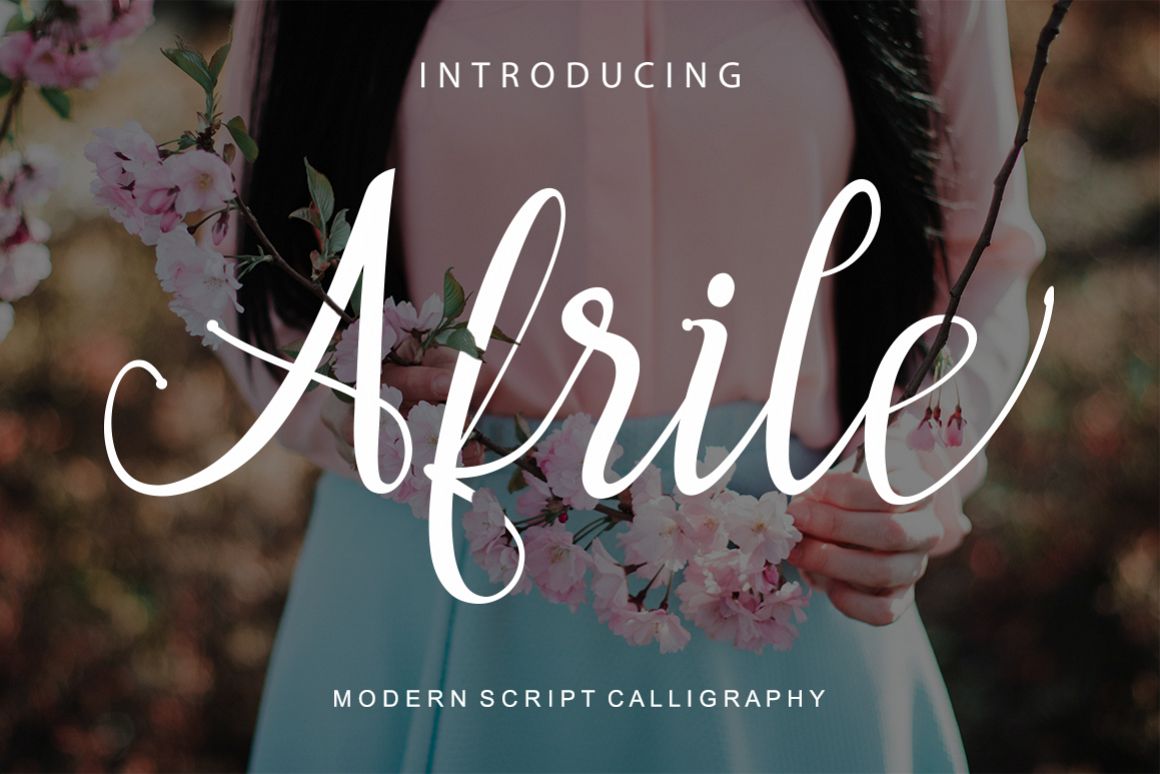
Afrile script
Afrile script.
Introducing
Afrile Script
Afrile Script a new fresh & modern script with a handmade calligraphy style, decorative characters and a dancing baseline! So beautiful on invitation like greeting cards, branding materials, business cards, quotes, posters, and more!!
Afrile Script come with 462+ glyphs. The alternative characters were divided into several Open Type features such as Swash, Stylistic Sets, Stylistic Alternates, Contextual Alternates. The Open Type features can be accessed by using Open Type savvy programs such as Adobe Illustrator, Adobe InDesign, Adobe Photoshop Corel Draw X version, And Microsoft Word. And this Font has given PUA unicode (specially coded fonts). so that all the alternate characters can easily be accessed in full by a craftsman or designer.
Afrile Script: